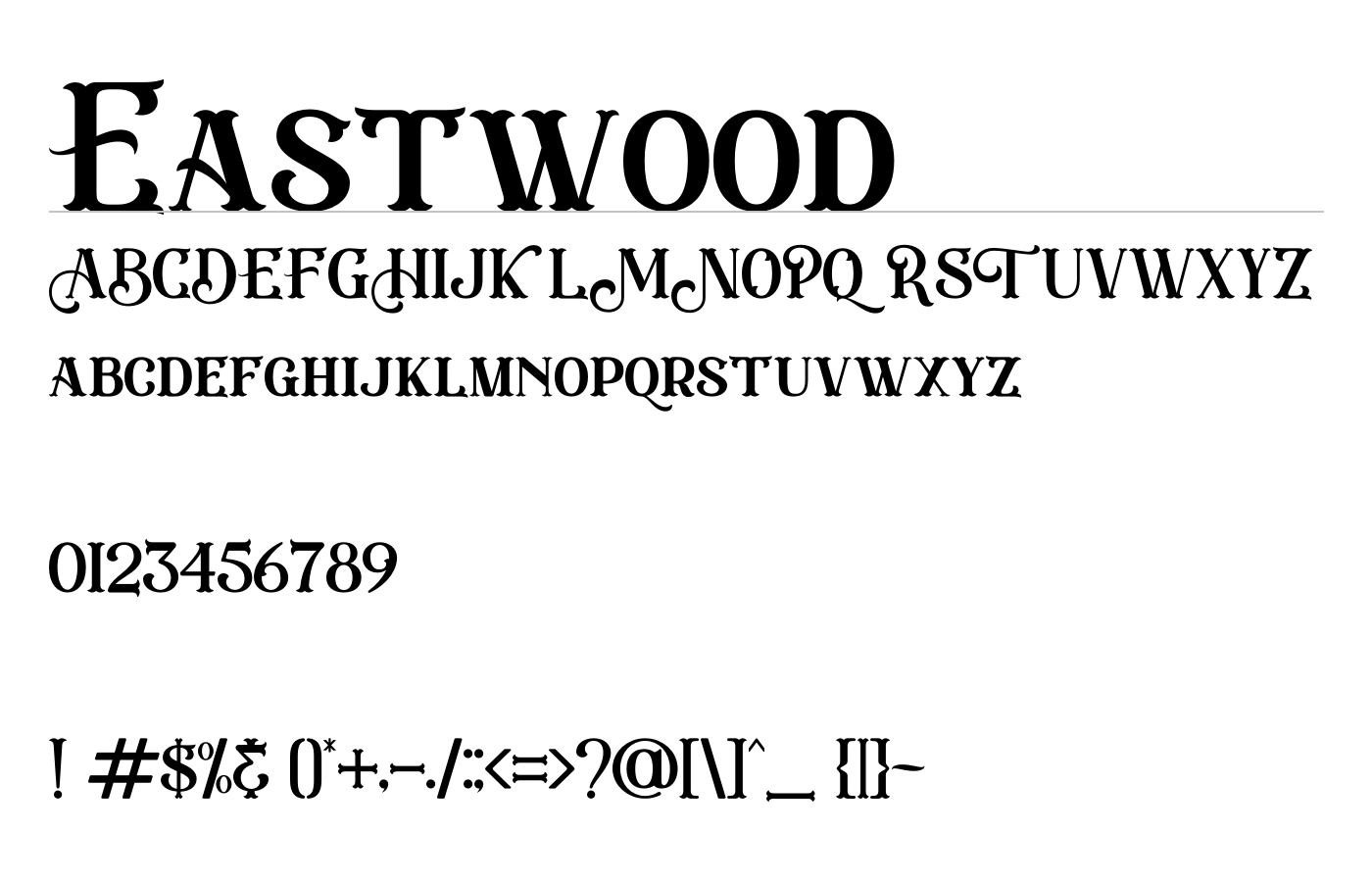
Eastwood is a bold serif typeface with a vintage Western flair, featuring high contrast between thick and thin strokes and distinctive decorative serifs with bracketed curves. Its uppercase letters showcase unique flourishes and subtle calligraphic touches that give it a rugged yet elegant personality, making it ideal for brands or designs seeking a nostalgic, adventurous, and handcrafted feel. This font works wonderfully in headlines, logos, and packaging where a strong, memorable Western-inspired style is desired.
Eastwood Font
About Eastwood Font